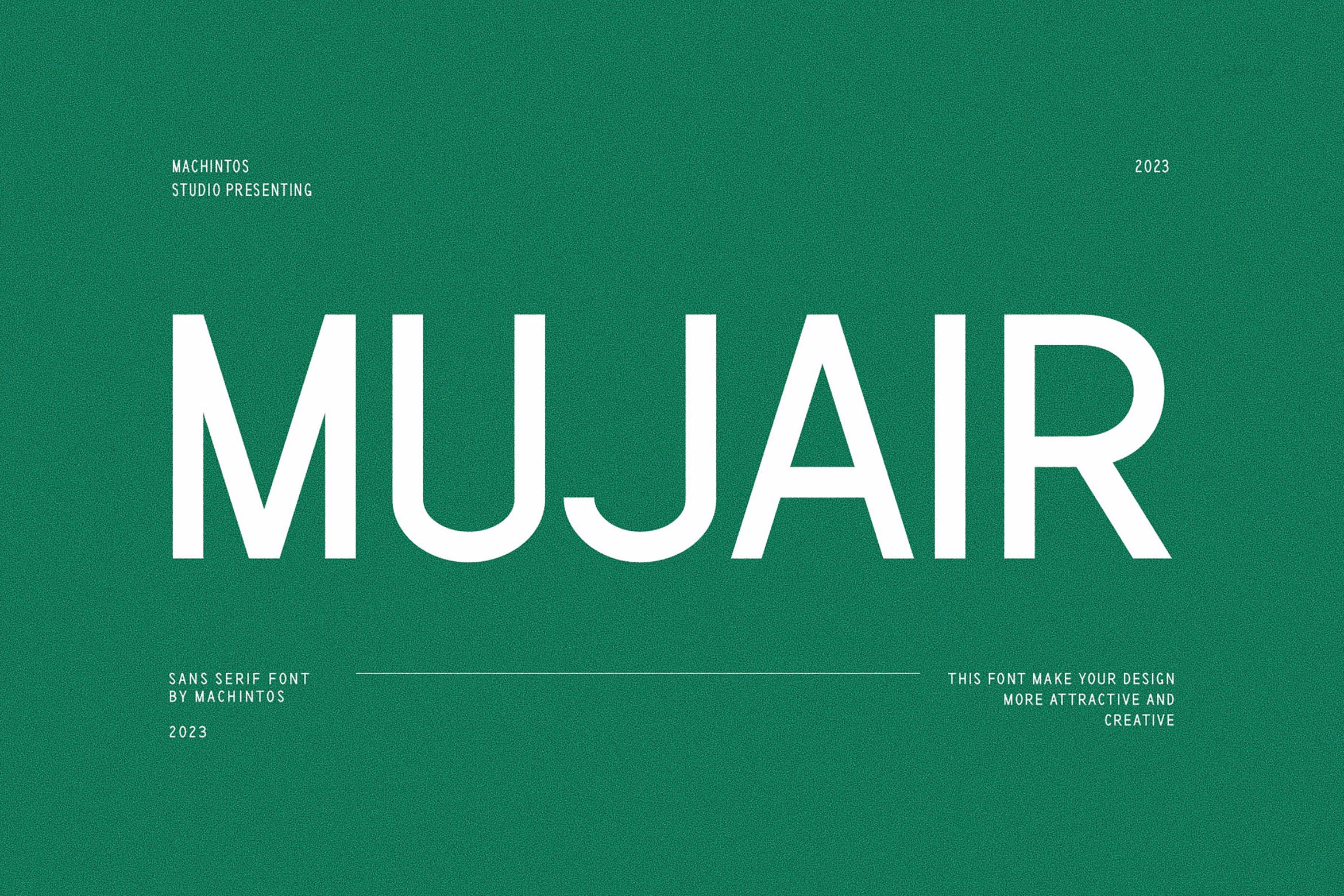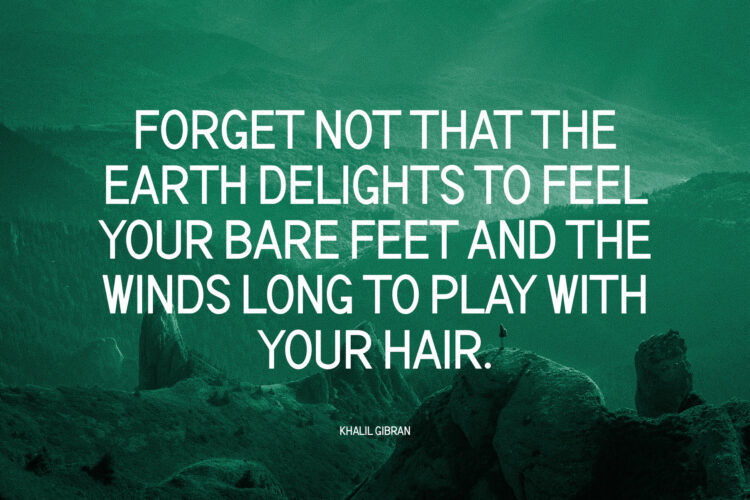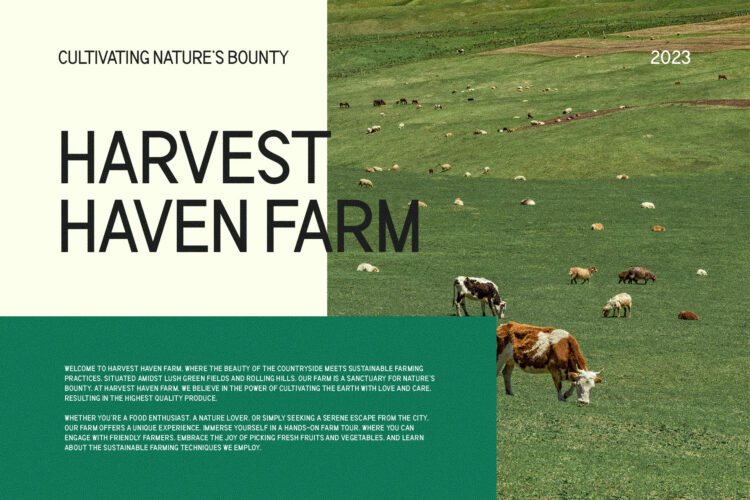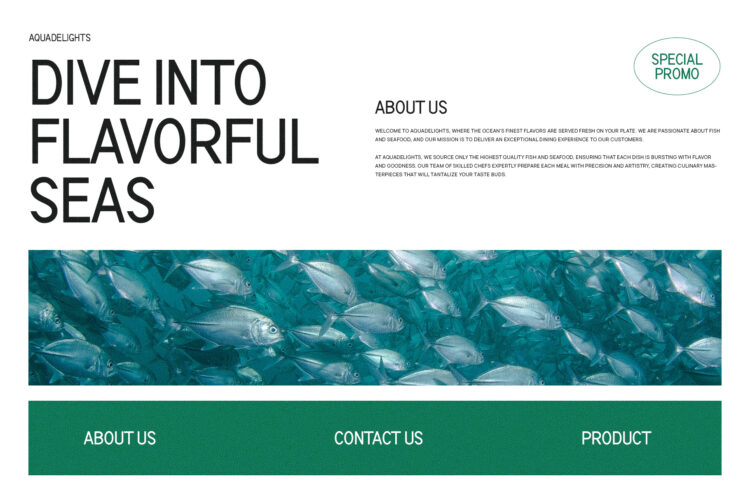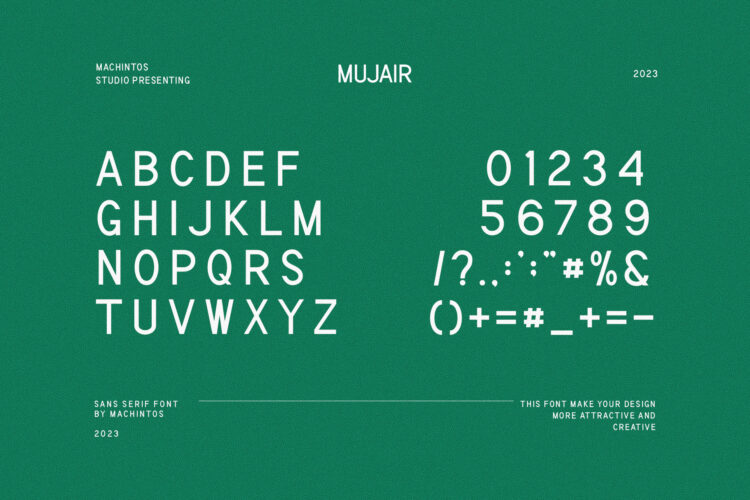
Introducing our new Mujair, modern sans serif font with elegant style this is perfect for branding, logos, invitation, magazines, product packaging and more.
Mujair – Modern Sans Serif